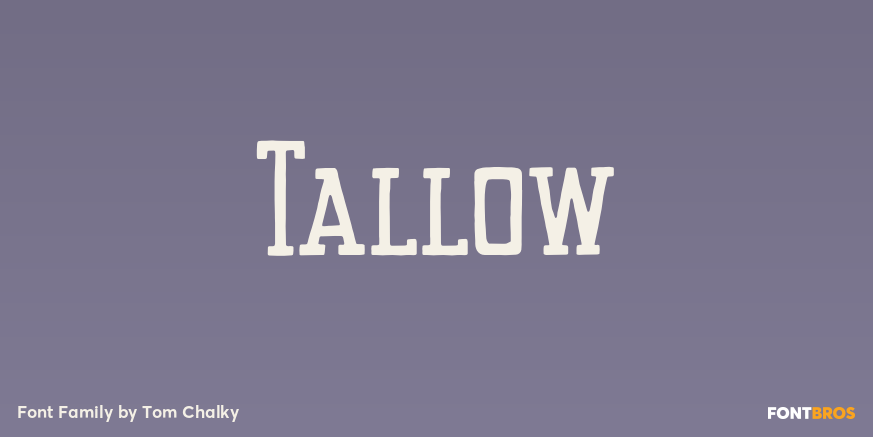
Tallow
About Tallow
Introducing the Tallow font family. An awesome collection of 10 handcrafted fonts that will be a great asset to any font library. This uppercase (and small caps) family consists of 5 different styles; brush, pen, sketch, rough and regular. And each of…